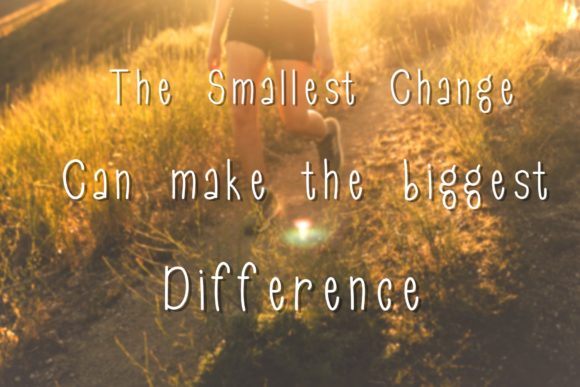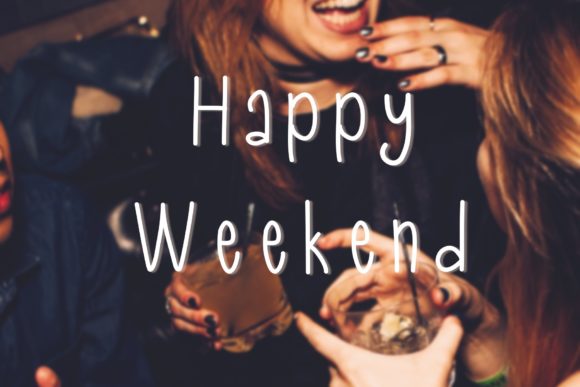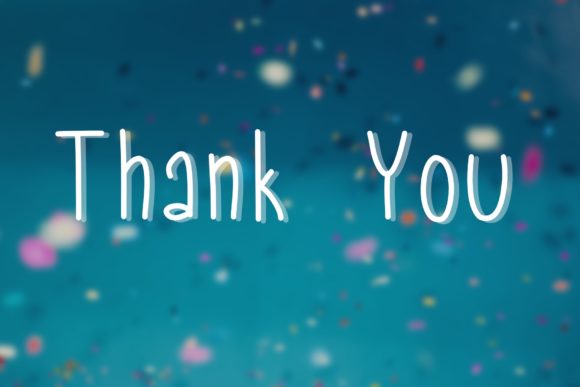
Happy Font
About Happy Font
Happy is a cute and friendly handwritten font. Clean and a little bit quirky, this font is the perfect fit for all of your logos, branding, social media, and crafty DIY projects.